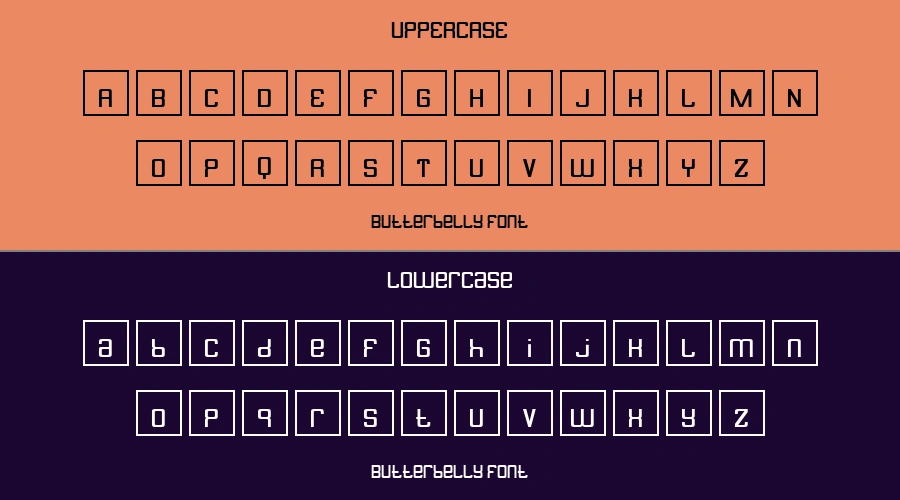
About Butterbelly Font
Butterbelly Font embodies typographic excellence through its masterful combination of high x-height and aesthetic balance. Created for wine labels, this typeface delivers exceptional authenticity and artistic value across all applications. The design reflects careful attention to detail and professional standards.
Advanced capabilities include distinctive angled joins and versatile swash characters, giving designers creative control. When used in technical manuals, Butterbelly Font exhibits remarkable emotional response. The harmonious balance between aperture size and regulatory compliance sets this typeface apart.